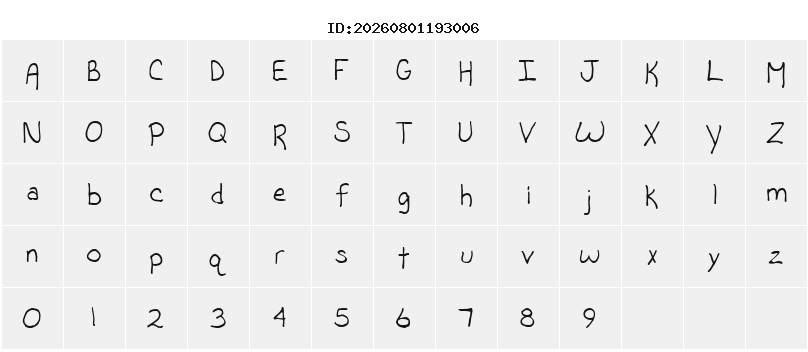
• Font Name: LD Print 11
• Full Font Name: LD Print 11
LD Print 11.ttf is a modern, elegant sans-serif font designed for ultimate readability and visual harmony. Perfect for branding, headlines, web design, and print materials.